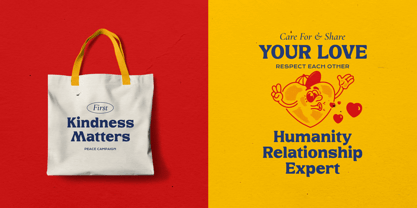
Mind Wander
The Mind Wander Font Family was designed by Anna Safitri and published by Logofonts. Mind Wander contains 1 styles. More about this family
Introducing! This is Mind Wander. A striking fusion of classic elegance and contemporary flair, this modern bold serif typeface brings timeless sophistication to any design. With strong, assertive letterforms, it exudes confidence and authority, making it ideal for projects that require a bold, standout presence. Its sharp, clean lines and prominent serifs offer readability and structure, while its sleek design ensures a fresh and forward-thinking aesthetic. Perfect for branding, headlines, logos, or editorial layouts, this typeface seamlessly combines tradition with modernity, offering a stylish and powerful choice for designers seeking to make an impact.